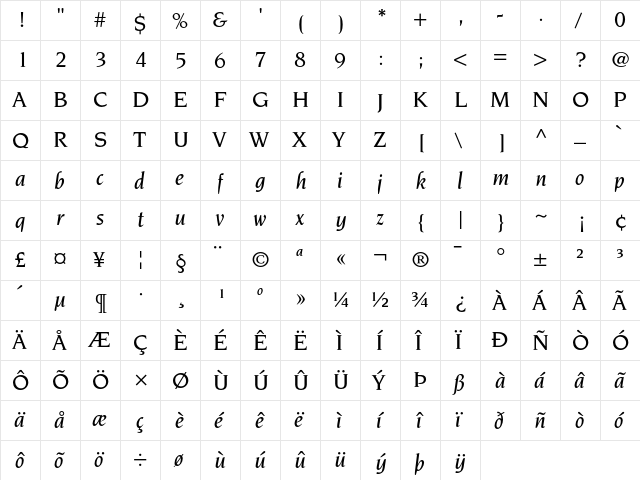
ITC Novarese Medium Italic Font Preview
ITC Novarese Medium Italic
Design Context for ITC Novarese Typeface
ITC Novarese is a composed and adaptable typeface that performs quietly and consistently across a wide range of design contexts. The slanted form adds forward momentum and visual energy.
Pro Tip: Use ITC Novarese for emphasis, pull quotes, and subheadings where its slanted energy can add rhythm to the layout.